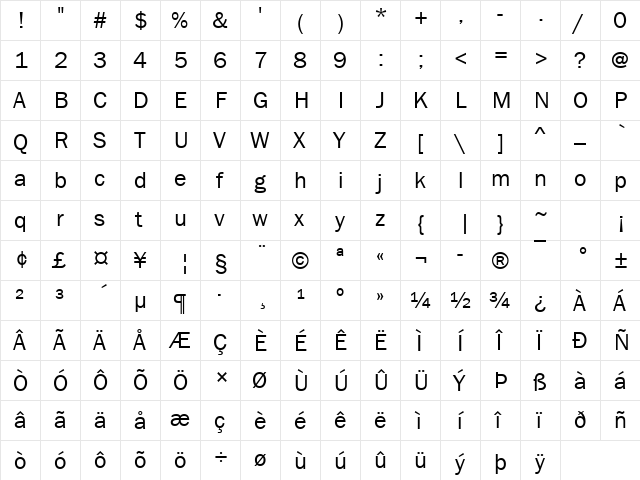
Franklin Gothic Book Regular
Franklin Gothic Book Regular Font Details
| Foundry | International Typeface Corporation |
| Designer | Victor Caruso |
Design Context for Franklin Gothic Book Typeface
Franklin Gothic Book takes a clean, functional approach — its unadorned letterforms prioritise legibility and work reliably across screen and print environments.
Font Pairing: Works well alongside a characterful serif or display font that can carry the expressive load while Franklin Gothic Book handles the functional copy.
Pro Tip: Use Franklin Gothic Book for UI labels, navigation, and short-form body copy where clean legibility is the priority.